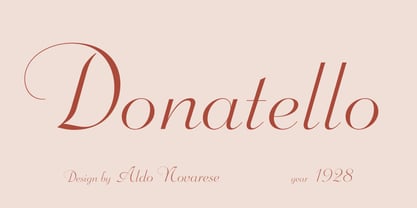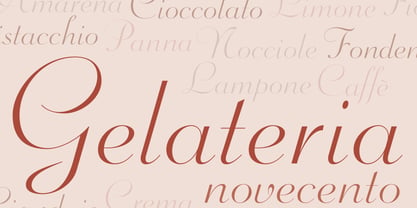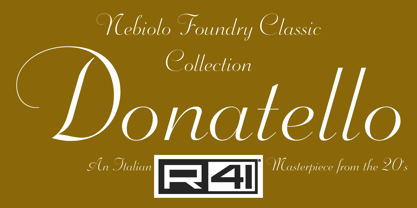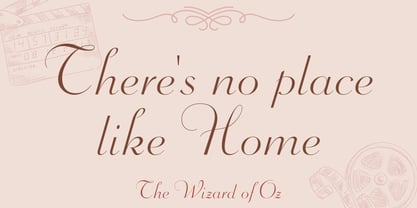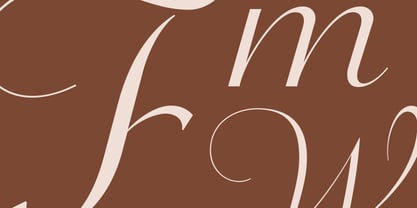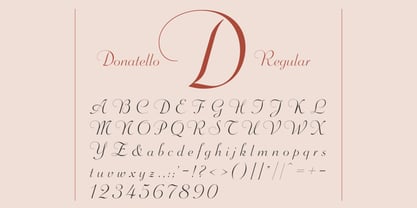
R41 Donatello
The R41 Donatello Font Family was designed by Aldo Novarese, Ariel Brandolini, Daniele Medina and published by Reber R41. R41 Donatello contains 1 styles. More about this family
This series introduced in 1928 is inspired by the English civilité or bâtarde design — slightly rounded and without connecting strokes. Its classical design gives it a modern yet timeless appearance. As with other English hand scripts, it produces the perfect effect for delicate works where harmonious lines are required, such as letterheads, greeting cards, announcements, and visiting cards.
Designers: Aldo Novarese, Ariel Brandolini, Daniele Medina
Foundry: Reber R41
R41 Donatello